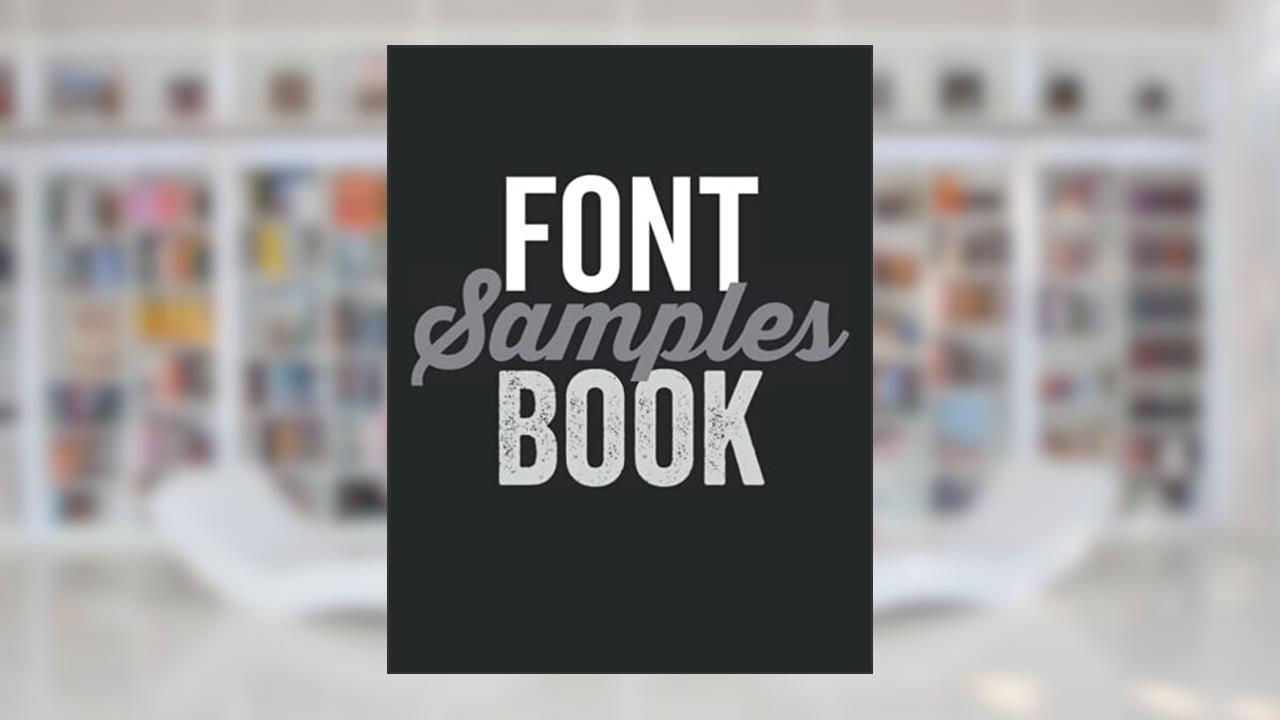
Font Samples Book
Over 600 Fonts to View as They Appear in Print
In a world dominated by digital designs and online communications, the tactile experience of print remains an unshakable pillar. Enter Font Samples Book: Over 600 Fonts to View as They Appear in Print by Michael B Hunter, a tome that transcends the mere collection of typefaces. It's not just a visual gallery of fonts; it's a resonating echo of typography's vital role in shaping our written communication and visual storytelling.
Typography enthusiasts and creative minds will find themselves drawn deep into this captivating work. Hunter crafts a journey through over 600 fonts, each laid bare in its typographic glory, an invitation to explore the nuance and character behind each style. In our fast-paced digital era, where countless font options flicker on our screens, how often do we truly take the time to appreciate their physical elegance? This book acts as a striking reminder to pause, reflect, and understand the profound impact fonts have on our perceptions and interpretations of text.
The inclusion of real-world application examples gives the reader a mesmerizing visual experience. Each font in this collection is showcased with a layout that mirrors actual print appearances, sparking creativity and ideas for countless design projects. Whether you're a seasoned graphic designer or an aspiring typographer, the wealth of inspiration housed in this single volume can spark a uniquely personal project.
Notably, readers rave about the tactile dimension Hunter brings to typography. The book's layout is meticulously designed, ensuring that each typeface doesn't just shout its name but sings its song. Critics argue that until now, few resources have offered such a sweeping visual feast, and they laud Hunter for elevating the humble font into the realm of high art. Many have taken to the internet, expressing their astonishment at how a book devoted to type could evoke emotions typically reserved for literature or paintings.
However, not all feedback flows uniformly in praise. Some readers express a desire for more context regarding when and where to best utilize each font. The absence of detailed descriptions could leave novice designers feeling slightly adrift when choosing between the myriad of styles shown. Yet, isn't this somewhat reflective of the creative process itself? The challenge of marrying form with function is one that every artist grapples with, and perhaps this lack of direction nudges the reader to explore and experiment independently.
Hunter's work, although seemingly niche, taps into a broader historical context: the evolution of communication and creativity in the modern age. From the days of movable type to today's digital interfaces, the often-overlooked significance of typography has been pivotal in shaping cultures and movements. Font Samples Book resonates with a hidden urgency-reminding us that fonts are the very vessels that carry our thoughts, emotions, and stories to the world.
Revelations emerge in the margins as well-discussing how notable figures in design have harnessed the power of typography to create cultural icons. Think of how a simple font can elevate a brand or solidify a message. The interplay of visual and verbal storytelling continues to influence the arts, advertising, and beyond.
As your fingers glide across the pages, you're not just witnessing a typographical display; you're engaging in a dance of creativity. There's an intoxicating thrill in discovering a font that resonates with your artistic vision-a font that becomes the voice of your message, the face of your projects. This book is your companion in that exhilarating pursuit.
In conclusion, Font Samples Book: Over 600 Fonts to View as They Appear in Print beckons you to not only view but also to revel in the complexity and beauty of typography. It's an emotional odyssey through style and substance, an invitation to celebrate the unsung heroes of our written world. So, embrace it, dive in, and allow each page to inspire you to craft your own narrative. ✨️